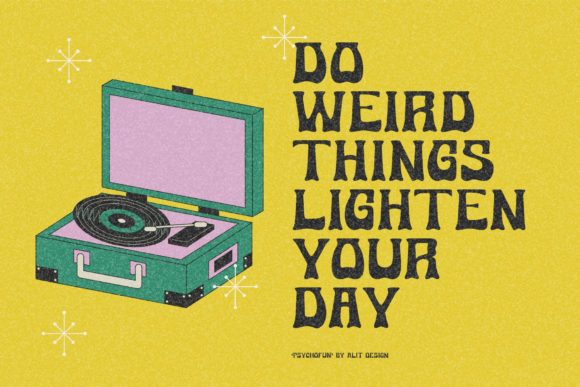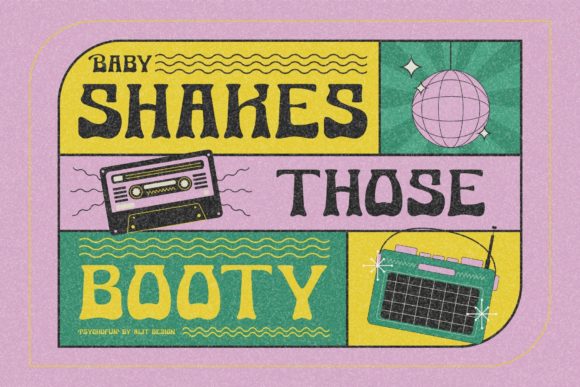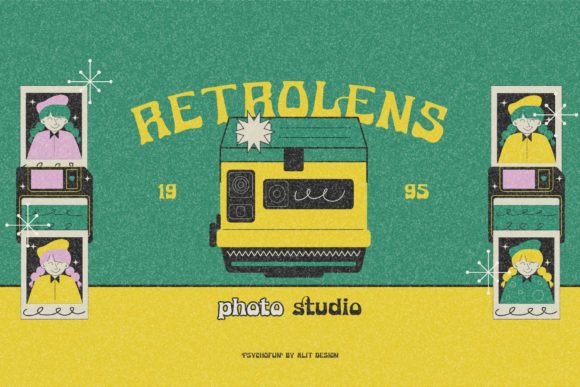
Introduction to Psychofun Font
Psychofun is a cool, retro styled and chic display font.
You can use it for various projects, such as blog posts, logos, branding, ads, invitations, greeting cards, planners, photo albums, decorations, and much more This font is PUA encoded which means you can access all of the glyphs and swashes with ease.